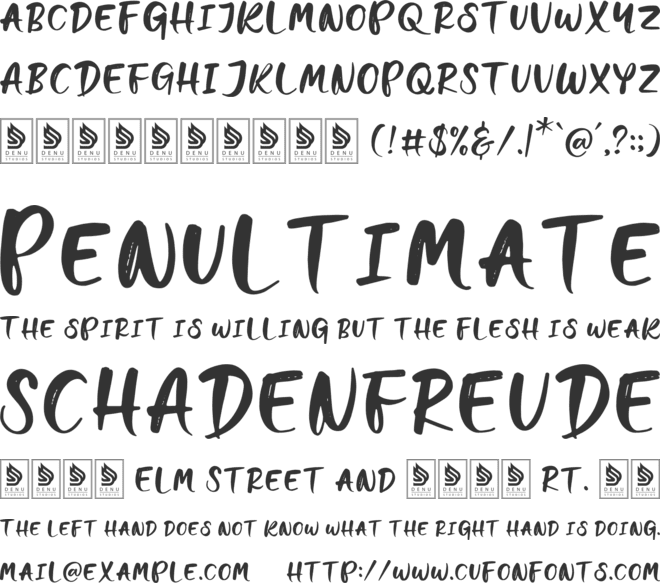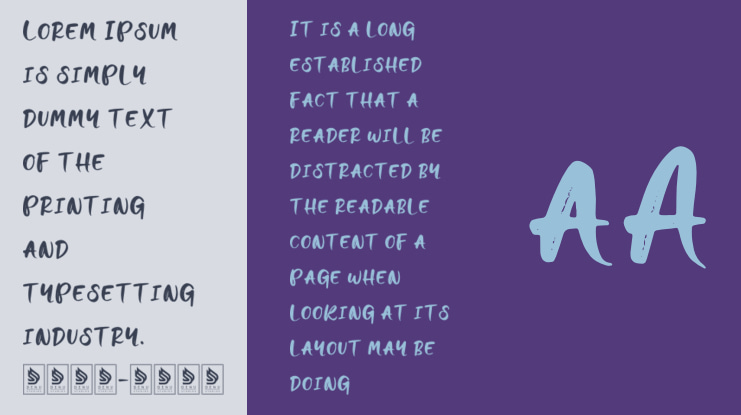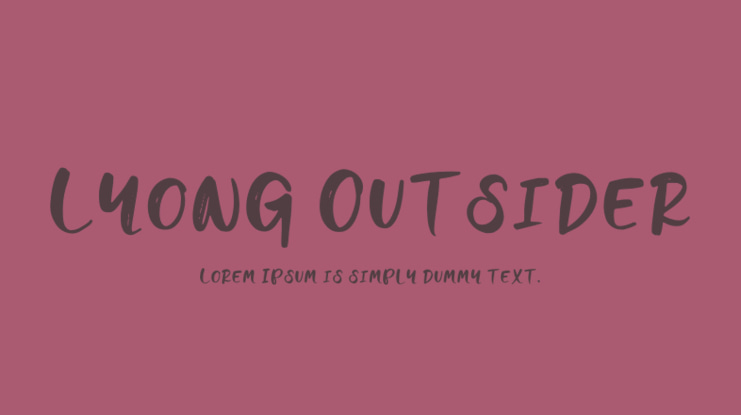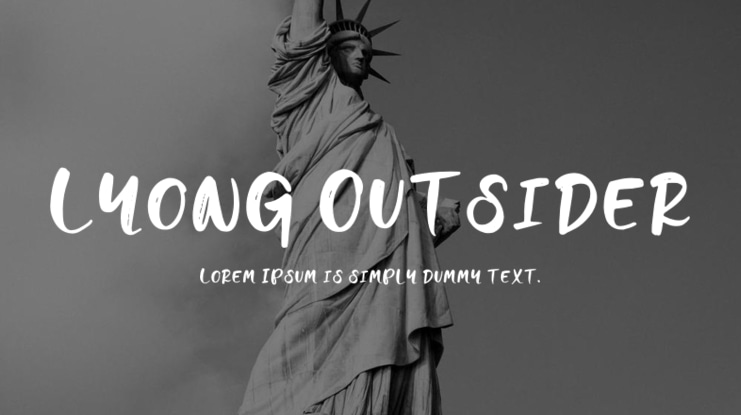
Lyong Outsider Font
Lyong Outsider | Hand Drawn Brush Font
This font is suitable for various projects such as logos, branding projects, homeware designs, product packaging, mugs, quotes, posters, shopping bags, t-shirts, book covers, name cards, invitation cards, greeting cards, labels, photography, watermarks, special events, and all your other lovely projects that need a Hand Drawn Brush Font taste.